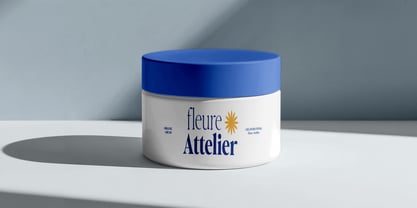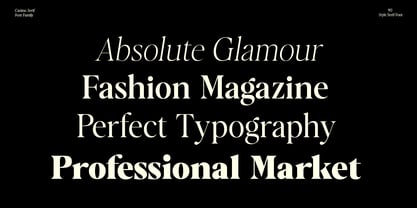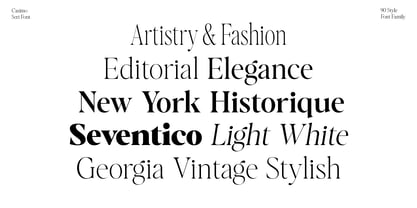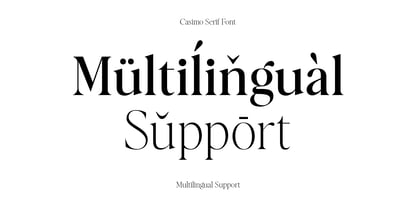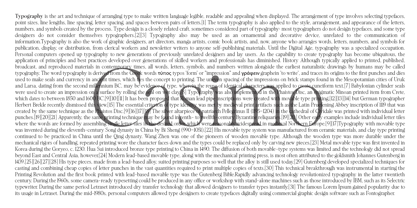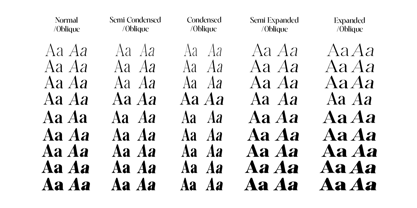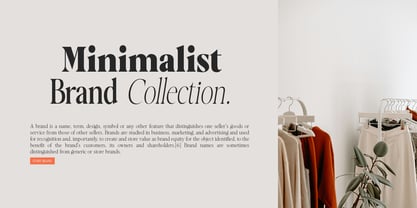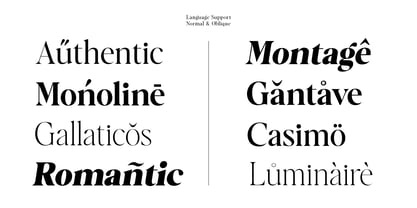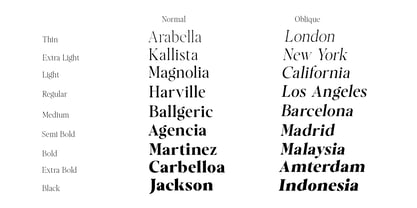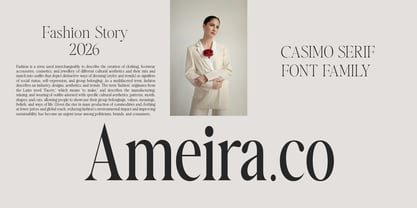
Casimo
by Mordex Studio
The Casimo Font Family was designed by Teuku Hamzah and published by Mordex Studio. Casimo contains 92 styles and family package options. More about this family
Introducing Casimo, a modern variable serif typeface that blends luxury, beautifully crafted projects, clarity, and contemporary elegance into one incredibly versatile font family. Designed with a delicate balance of sharp details and soft curves, this font enhances every curve and white space, expands multilingual support, and introduces new typographic tools for maximum flexibility. The Casimo Serif font offers up to 90 styles, including upright and italic forms. Balanced proportions, high legibility, and consistent rhythm work beautifully across a variety of large display sizes and smaller text settings. Perfect for: branding and logos, editorial and app design, advertising, packaging, and high-end display typography. Key features: Fully variable font for maximum flexibility Luxurious modern serif characters Balanced sharp and soft shapes for a premium feel Comprehensive font family suitable for both display and text use.
Designers: Teuku Hamzah
Foundry: Mordex Studio